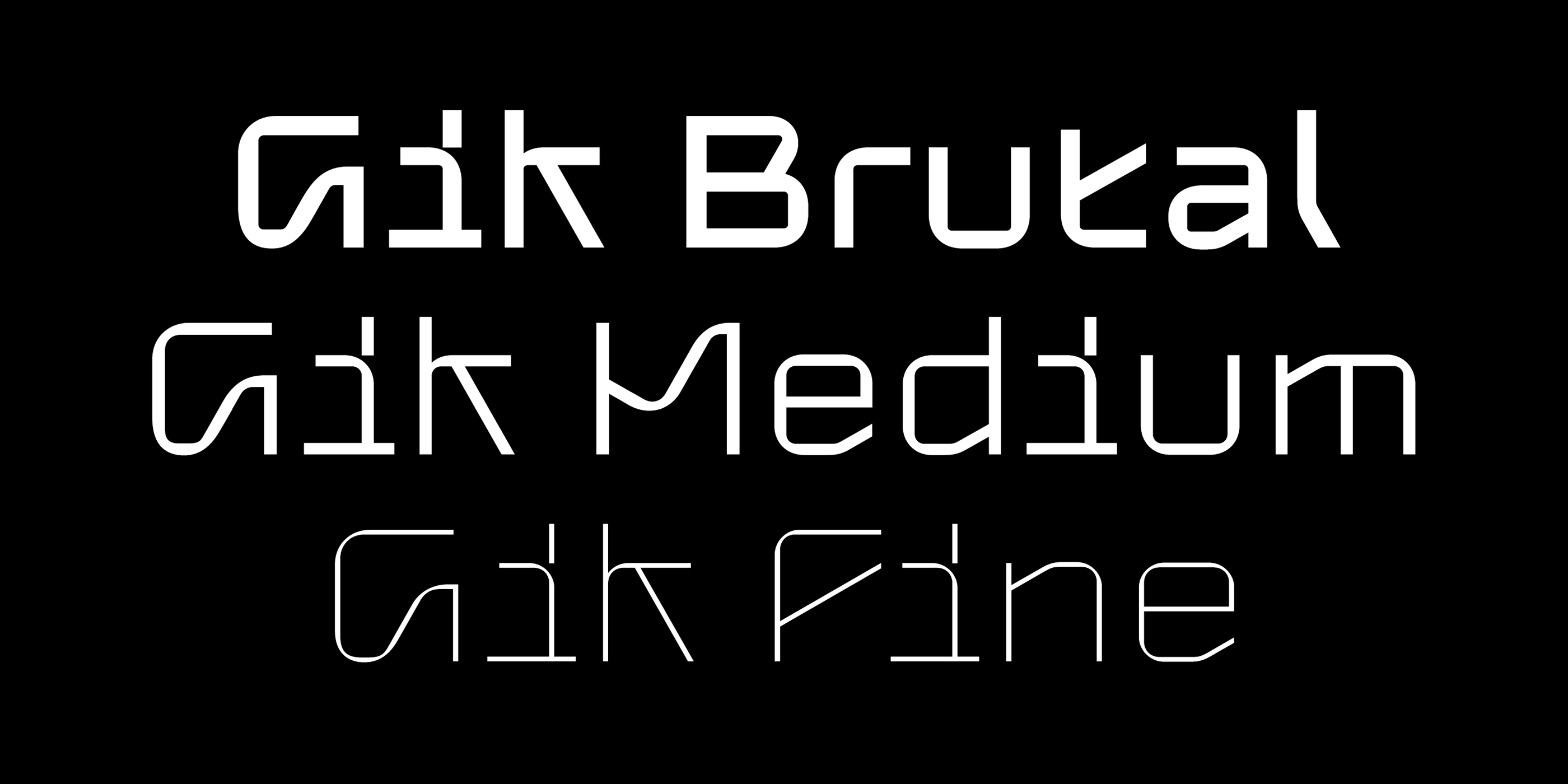
Gik is a family of three modular typefaces: Fine, Medium, Brutal. Their design combines handwritten letterforms and plastic solutions of (De-)Constructivism, Brutalism, and de Stijl type. The typeface’ personality is a balancing act between modernist enthusiasm and postmodernist mockery.
Despite its conceptual controversy, Gik is a quite multi-purpose typeface which would be an appropriate choice for the Fashion Week set design as well as a crypto startup identity (there is a bitcoin sign in the character set designed specifically to this end).